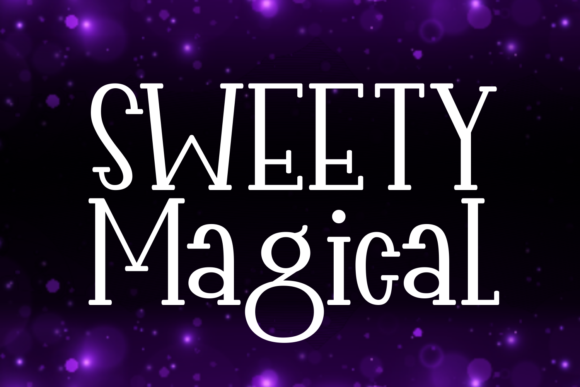
Behold, the enchanting world of typography awaits you with Sweety Magical Font, a captivating serif creation from the visionary minds at Creative Fabrica Fonts. Immerse yourself in the allure of this modern and thin typeface, meticulously designed to elevate your creative projects to new heights of elegance and charm.
Unleash the boundless versatility of Sweety Magical, a font that effortlessly adapts to a myriad of design endeavors, from the delicate artistry of t-shirts and art prints to the bold statements of covers and logos. Its neat and simple style dances across the page, weaving a tapestry of captivating visuals that leave an indelible impression on all who behold it.
With Sweety Magical as your creative companion, words transform into exquisite works of art, cascading across your designs with a grace that captures the eye and captivates the soul. Its tall serif structure exudes a timeless beauty, reminiscent of classic literature brought to life in the digital age. Each letter, meticulously crafted with precision, emerges as a testament to the enduring power of typography.
Picture your designs adorned with Sweety Magical's enchanting presence: t-shirts that whisper poetry in motion, art prints that evoke a symphony of emotions, covers that command attention with their regal aura, and logos that radiate a sense of sophistication and timeless appeal. The possibilities are infinite, bound only by the limits of your imagination.
Immerse yourself in the creative reverie that awaits with Sweety Magical, the font that sparks a whirlwind of ideas and breathes life into your designs. Let your creativity soar on the wings of this typographic masterpiece, and experience the transformative power of words elegantly expressed.